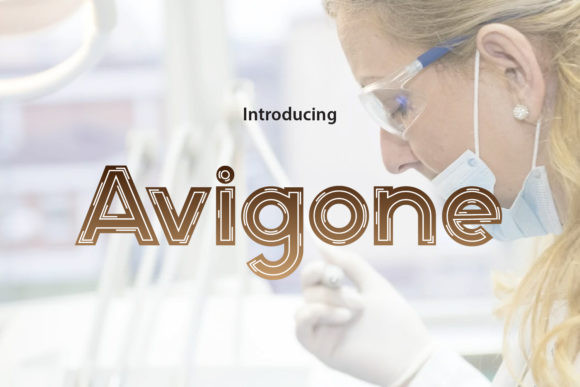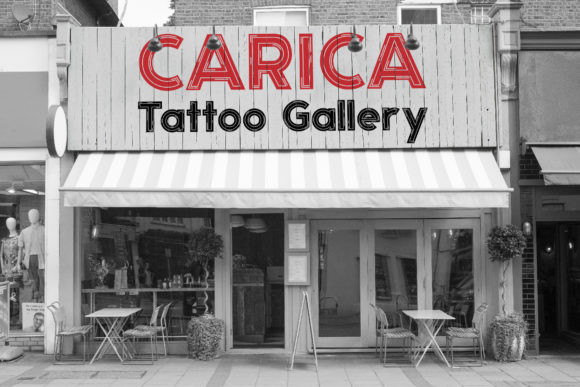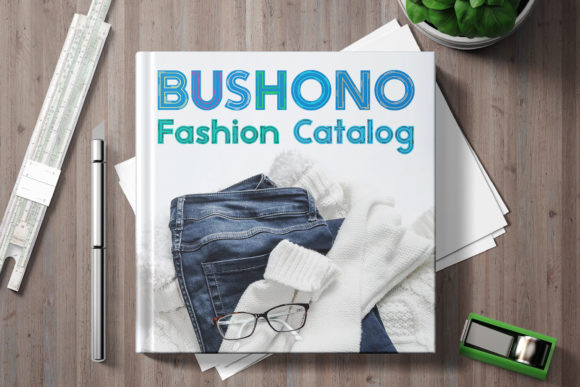
Avigone Font
Avigone is an elegant display font, carefully handcrafted to become a true favorite. Its casual charm makes it appear wonderfully down-to-earth, readable and, ultimately, incredibly versatile. Avigone will look outstanding in any context, whether it’s being used on busy backgrounds or as a standalone headline!